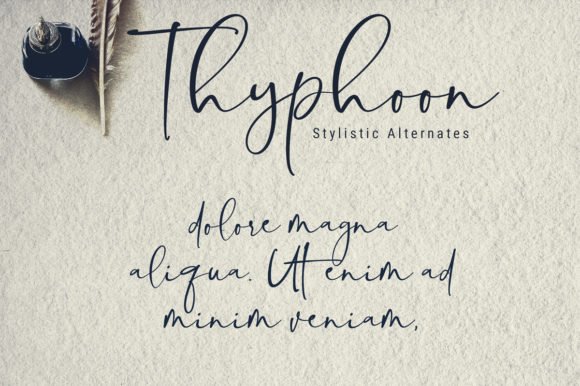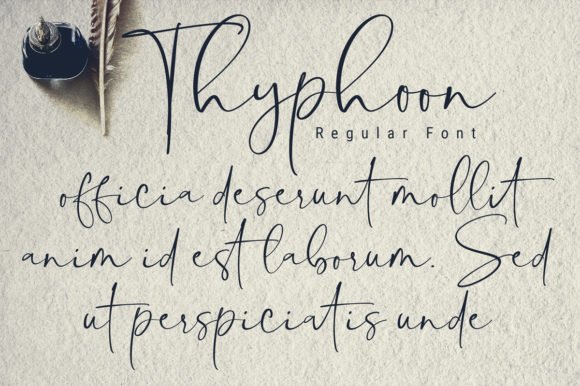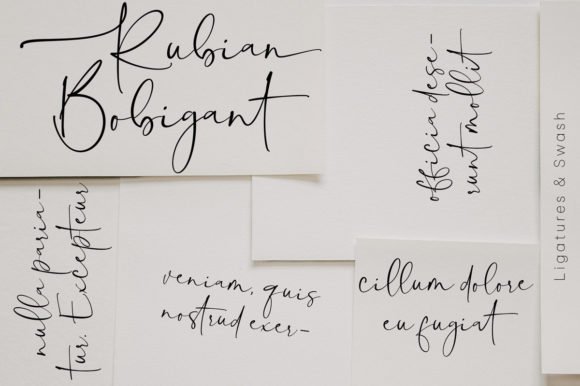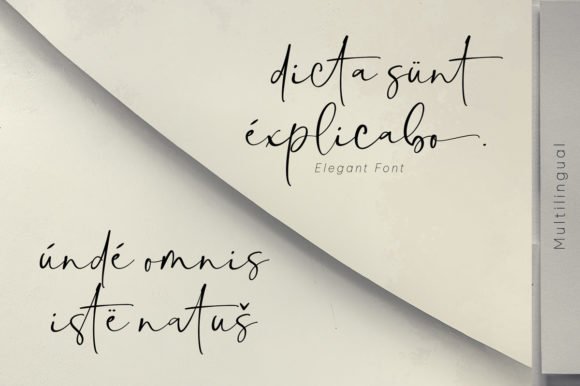
Typhoon Font
Thyphoon is a beautiful and refined script font. It has a classy, elegant and modern look that can be used for logos, branding, invitations, stationery, wedding designs, social media posts, and much more!